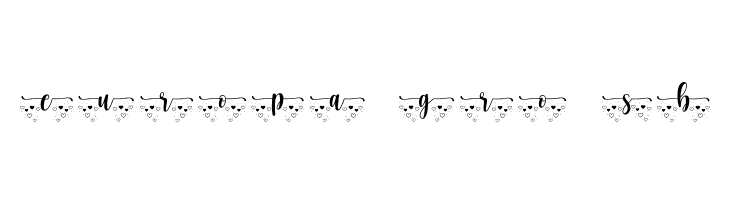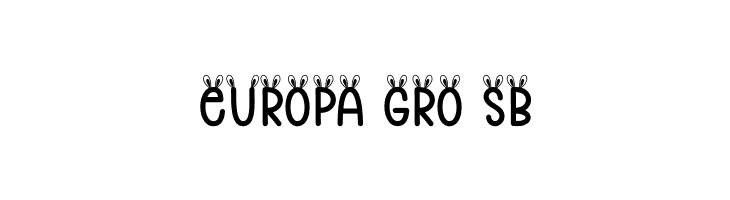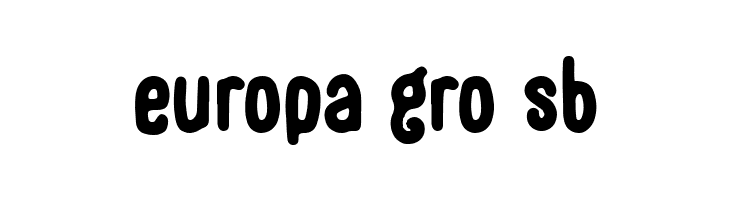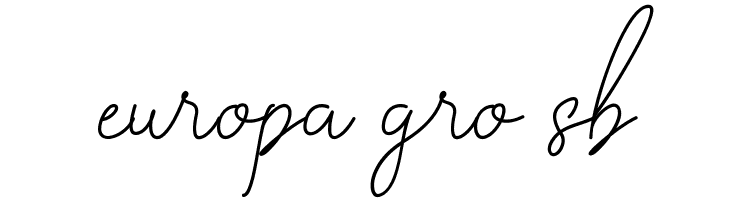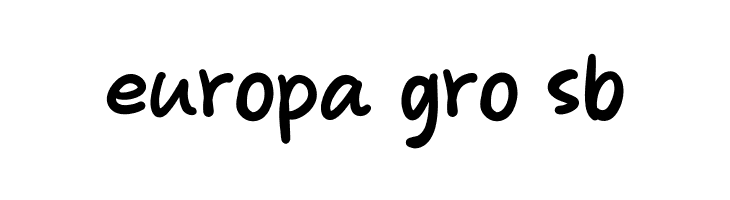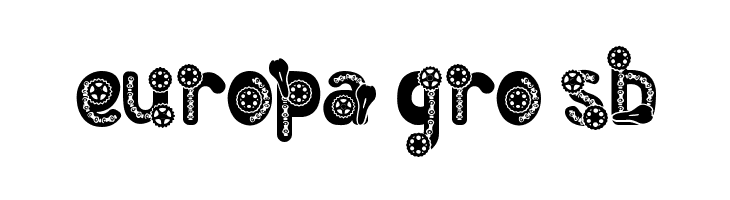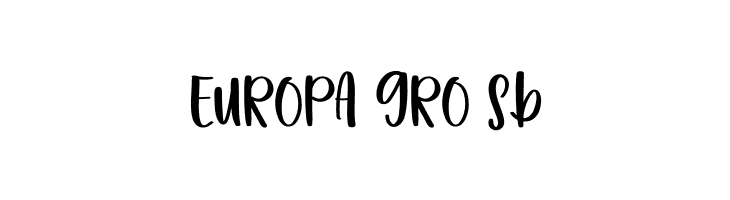
• Heart Monogram
A decorative script font with flowing cursive letters and heart motifs.
• Rabbit Ears
A whimsical font with rabbit ear decorations on each character, perfect for playful designs.
• Pearch
A playful, bold font with rounded, thick strokes and a hand-drawn feel.
• Love Earth Demo
An elegant, flowing script font with a handwritten appearance.
• Kids Year
A playful, handwritten-style font with a friendly and informal appearance.
• Zany Route Gear
A bold, decorative font with intricate gear motifs and mechanical themes.
• Pastel Palooza Bunny Ear
A playful font with bunny ear embellishments, perfect for festive and cheerful designs.
• Yearly
A playful and expressive handwritten font with bold, flowing curves.
• Dear Theo 2
Expressive handwritten font with fluid, cursive strokes.
• Irish Blessing